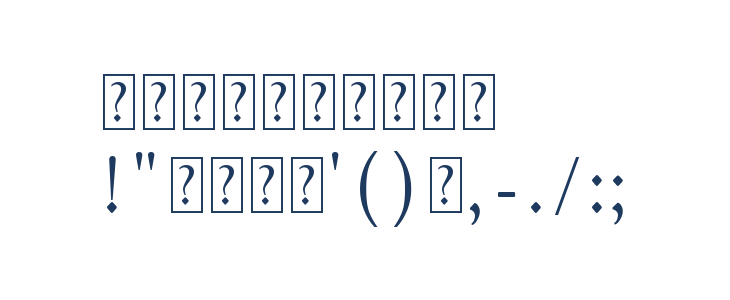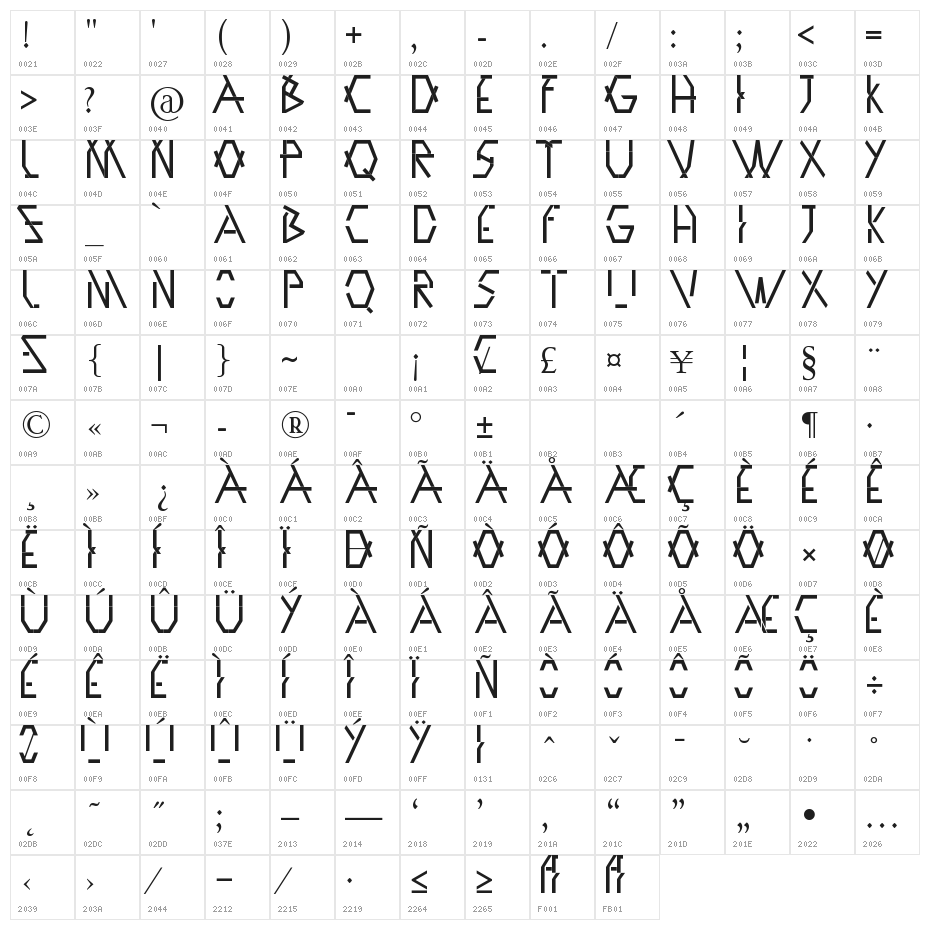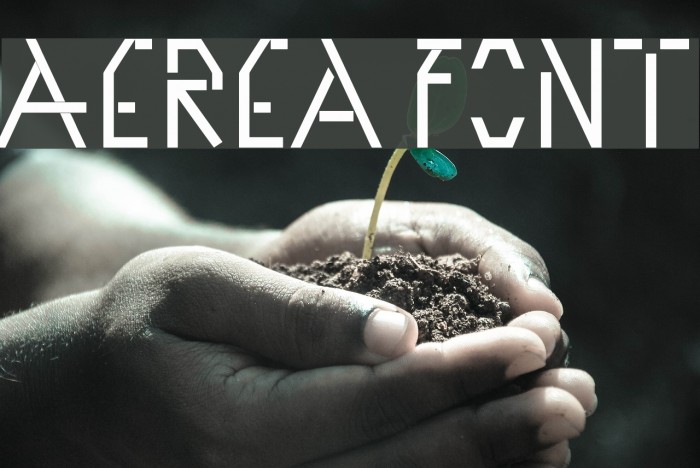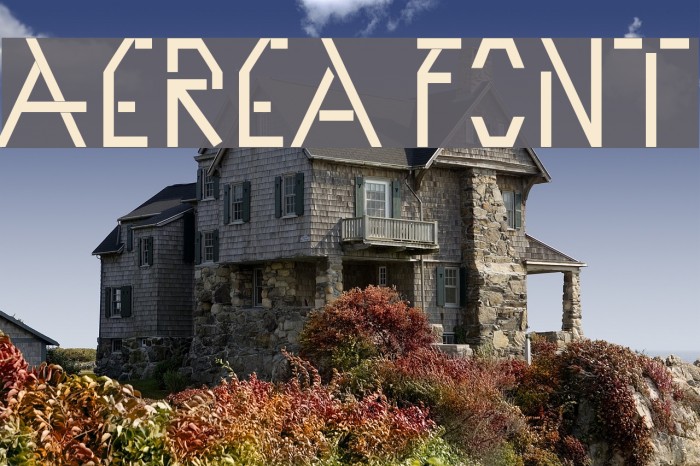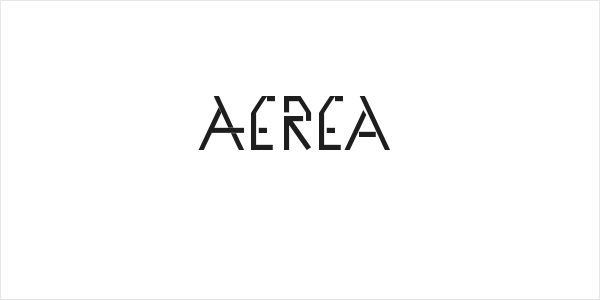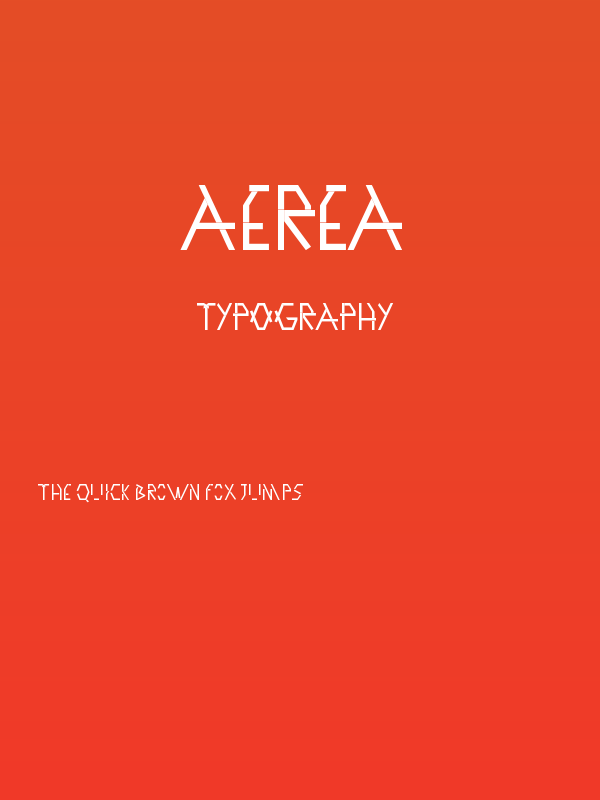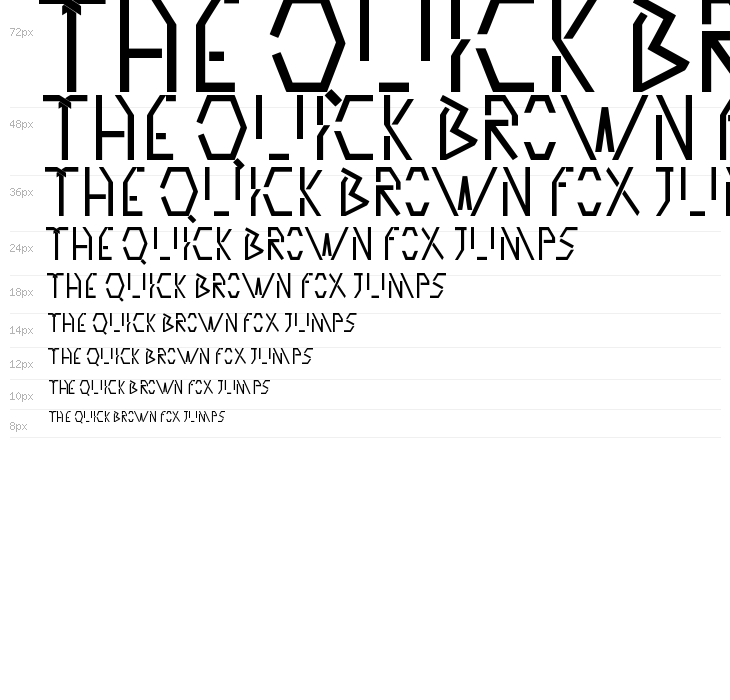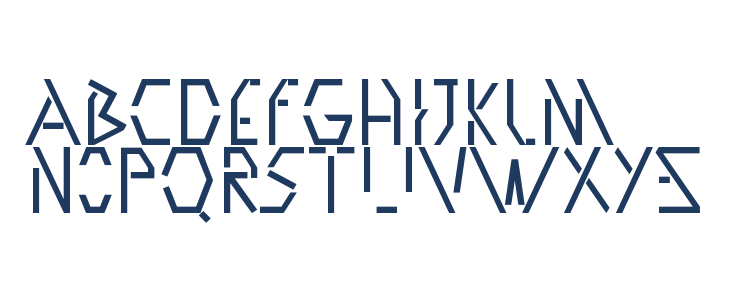
Aerea Font
Aerea Description
This font features a highly geometric and angular design, characterized by sharp edges and a futuristic aesthetic. The uppercase letters are constructed with a series of straight lines and angles, creating a sense of movement and dynamism. The lowercase letters maintain this angular style, offering a cohesive look across the typeface. The numerals and special characters are designed to match the angular theme, providing a consistent visual experience. This font's unique style makes it stand out, ideal for projects that require a modern and edgy appearance.
| Proposed Projects | Ideal for sci-fi themed designs, modern branding, video game titles, and digital artwork. |